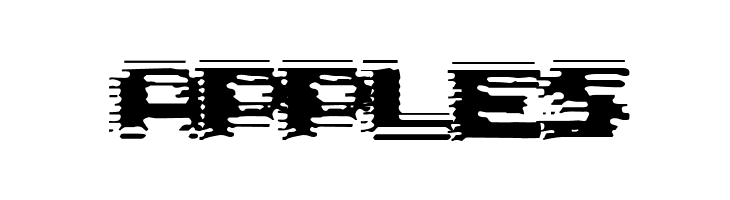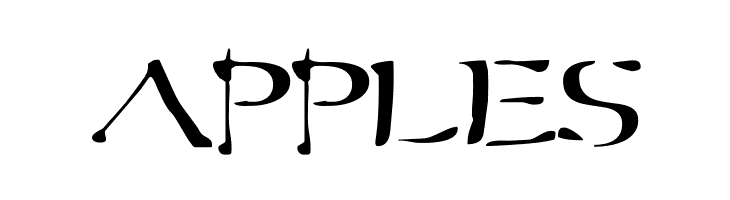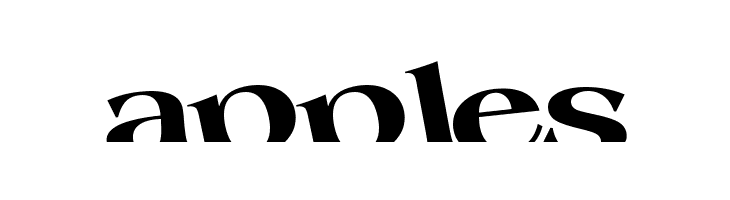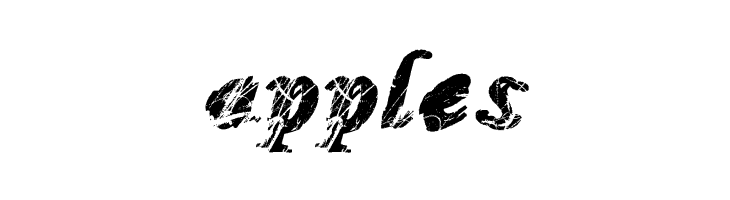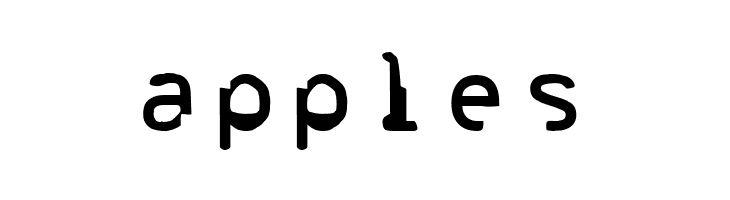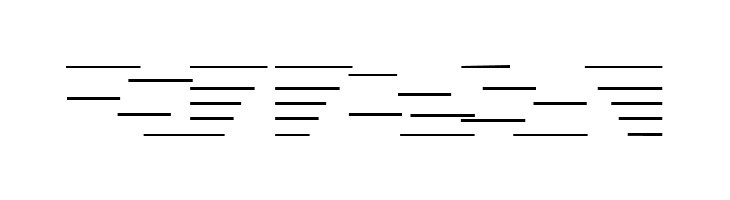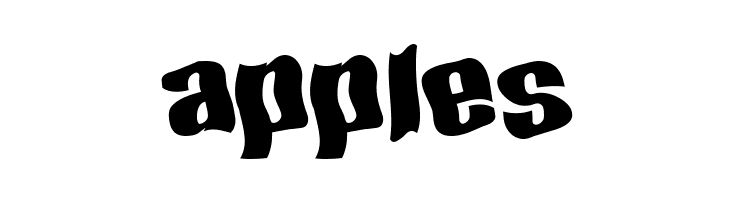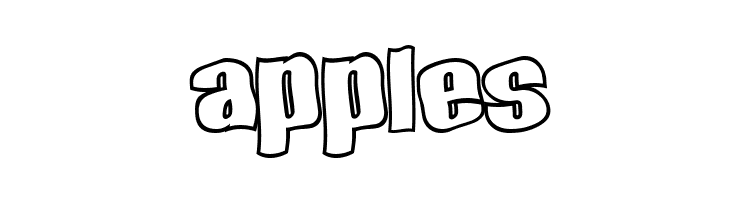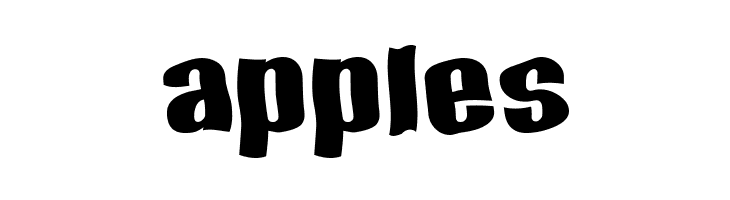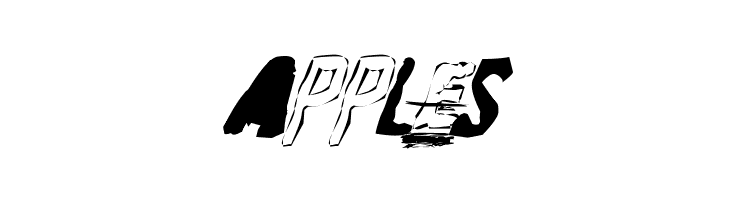
A playful, bold font with wavy, distorted characters for a whimsical look.
An edgy, hand-drawn font with elongated, distorted letterforms and a rebellious style.
A glitch-inspired font with bold, distorted characters and a digital aesthetic.
A bold, dynamic font with playful distortions and varying stroke widths.
A playful, distorted font with quirky, energetic characters.
A glitch-inspired font with bold, distorted characters and a digital aesthetic.
A bold, distorted font with a playful, chaotic style.
A bold, playful outline font with a whimsical, distorted appearance.
A bold, distorted font with a playful, dynamic style.
A playful, distorted font with elongated, wavy characters.
A bold, decorative font with distorted and artistic letterforms.
A highly distorted and blurred font with overlapping characters, creating an abstract visual effect.
A decorative, fragmented font with abstract, distorted letterforms.
A decorative, abstract font with fragmented and distorted letterforms.
A bold, condensed font with high contrast and a modern, distorted style.
A bold, dynamic font with a playful, distorted style.
A bold, glitch-inspired font with a modern, distressed look.